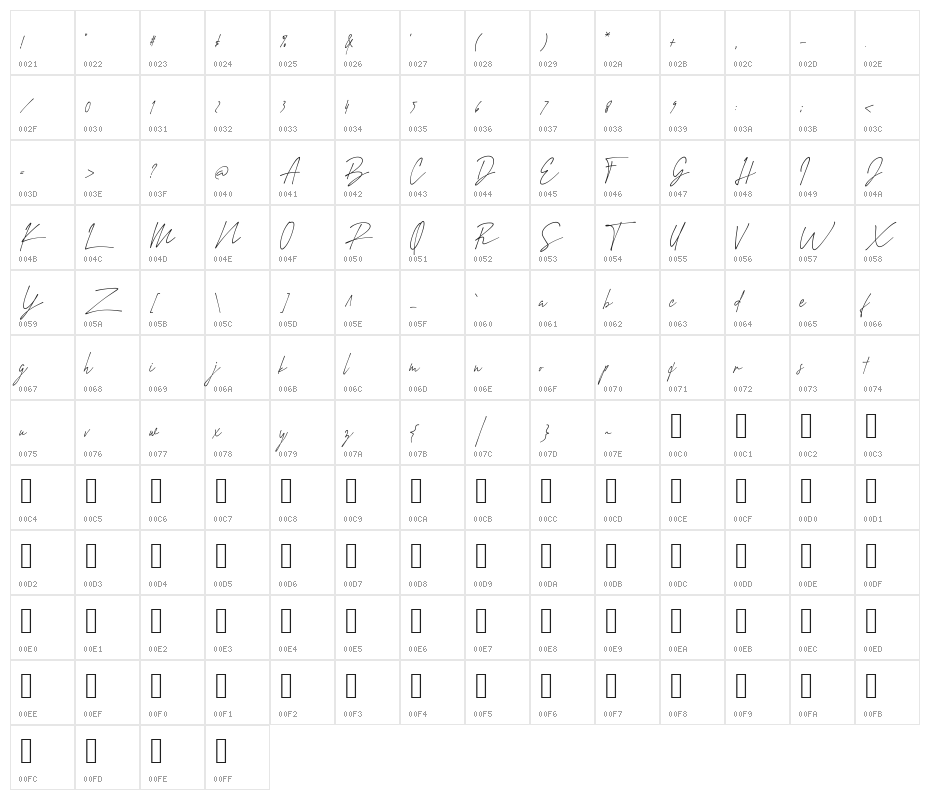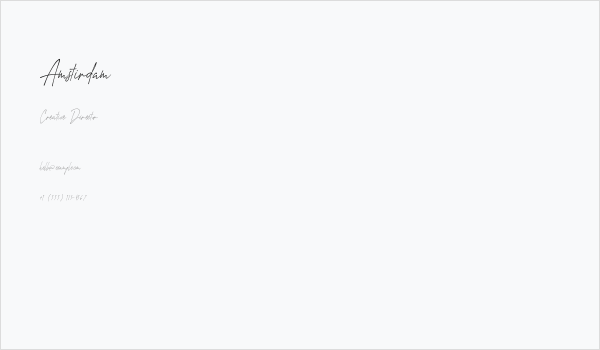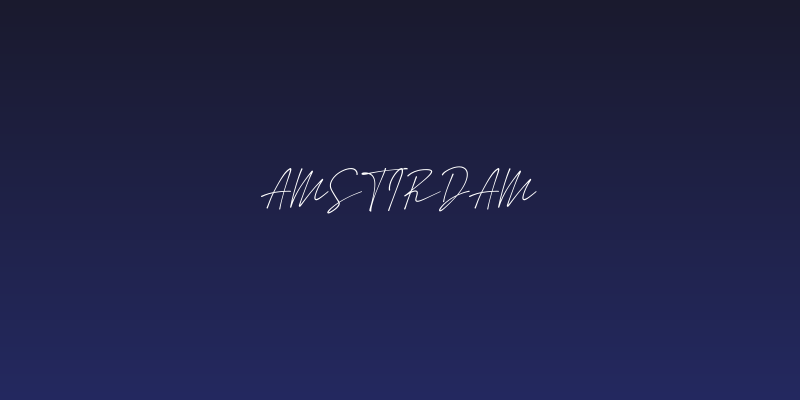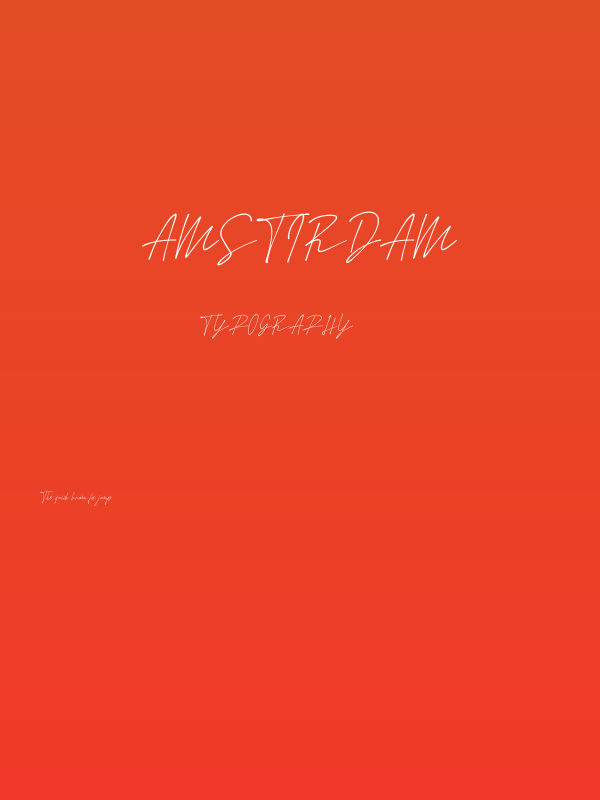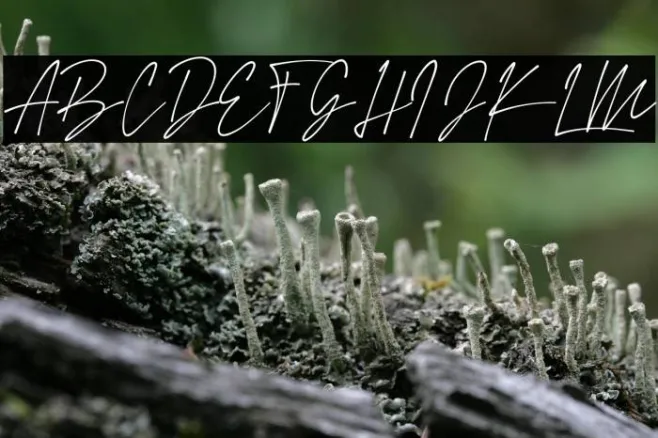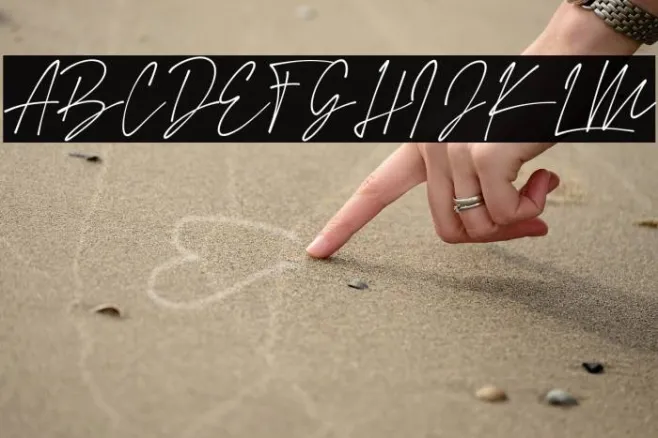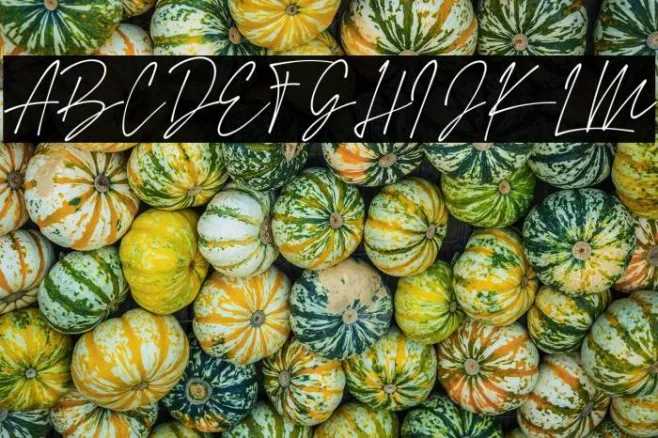
Amstirdam Font
Amstirdam Description
This font features a fluid, handwritten style that exudes elegance and sophistication. The letters are connected in a cursive manner, with a slight slant that adds to its graceful appearance. The strokes are thin and delicate, giving it a light and airy feel. The uppercase letters are slightly larger and more pronounced, while the lowercase letters maintain a consistent flow. Numbers and special characters are designed to match the overall aesthetic, ensuring a cohesive look. This font is perfect for projects that require a personal touch, such as invitations, greeting cards, or branding materials.
| Proposed Projects | Ideal for wedding invitations, personal branding, greeting cards, and elegant stationery. |